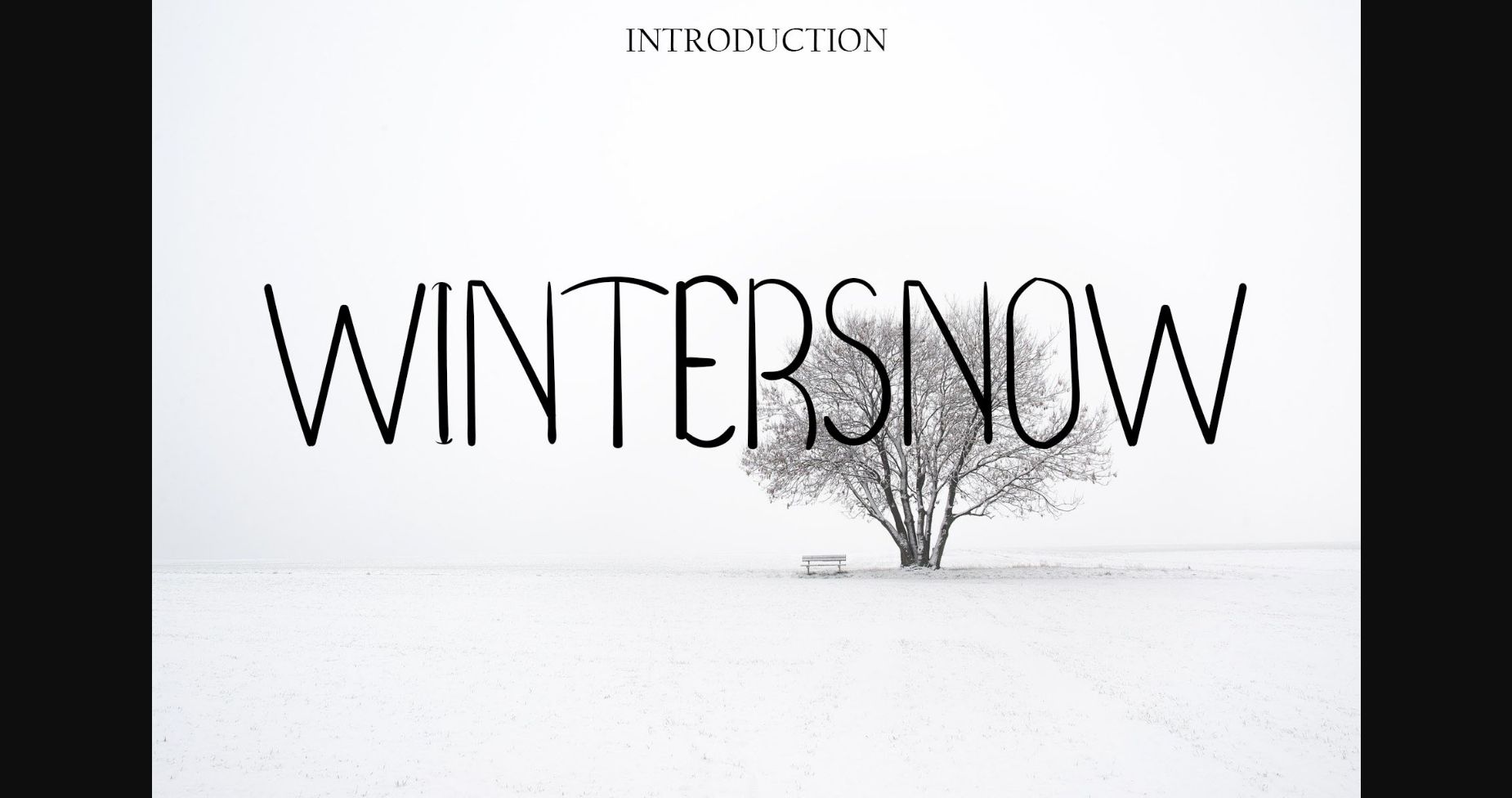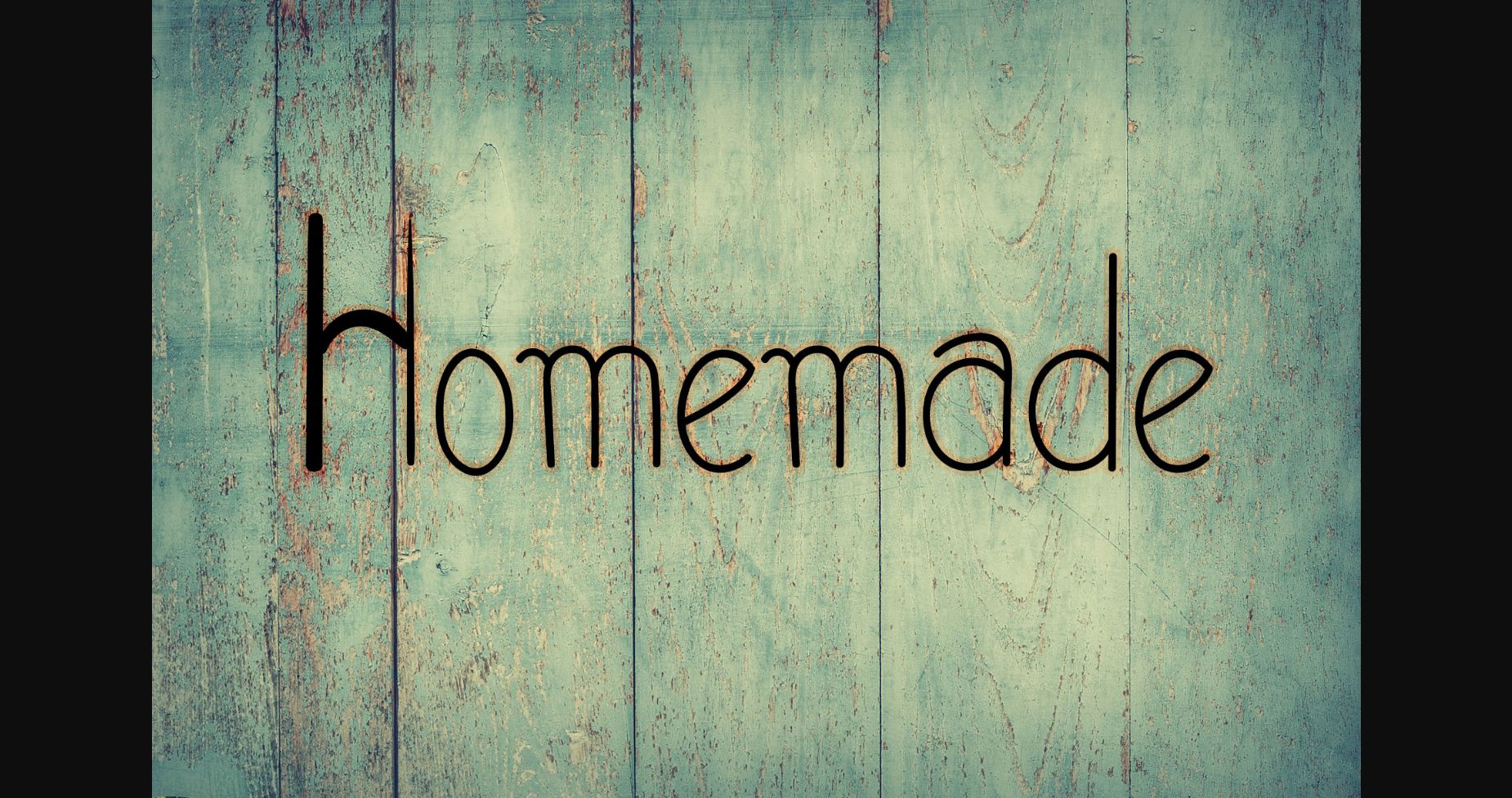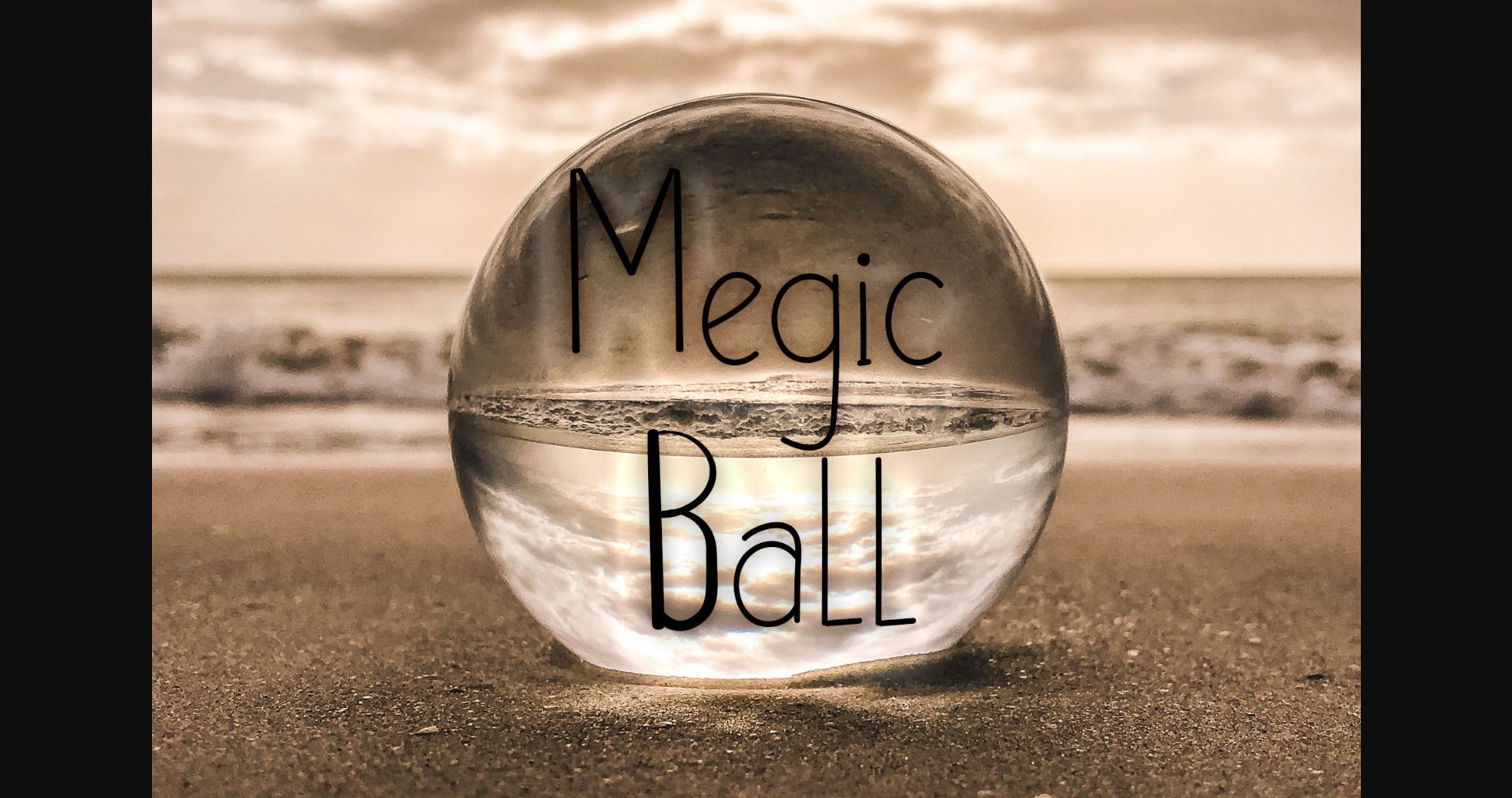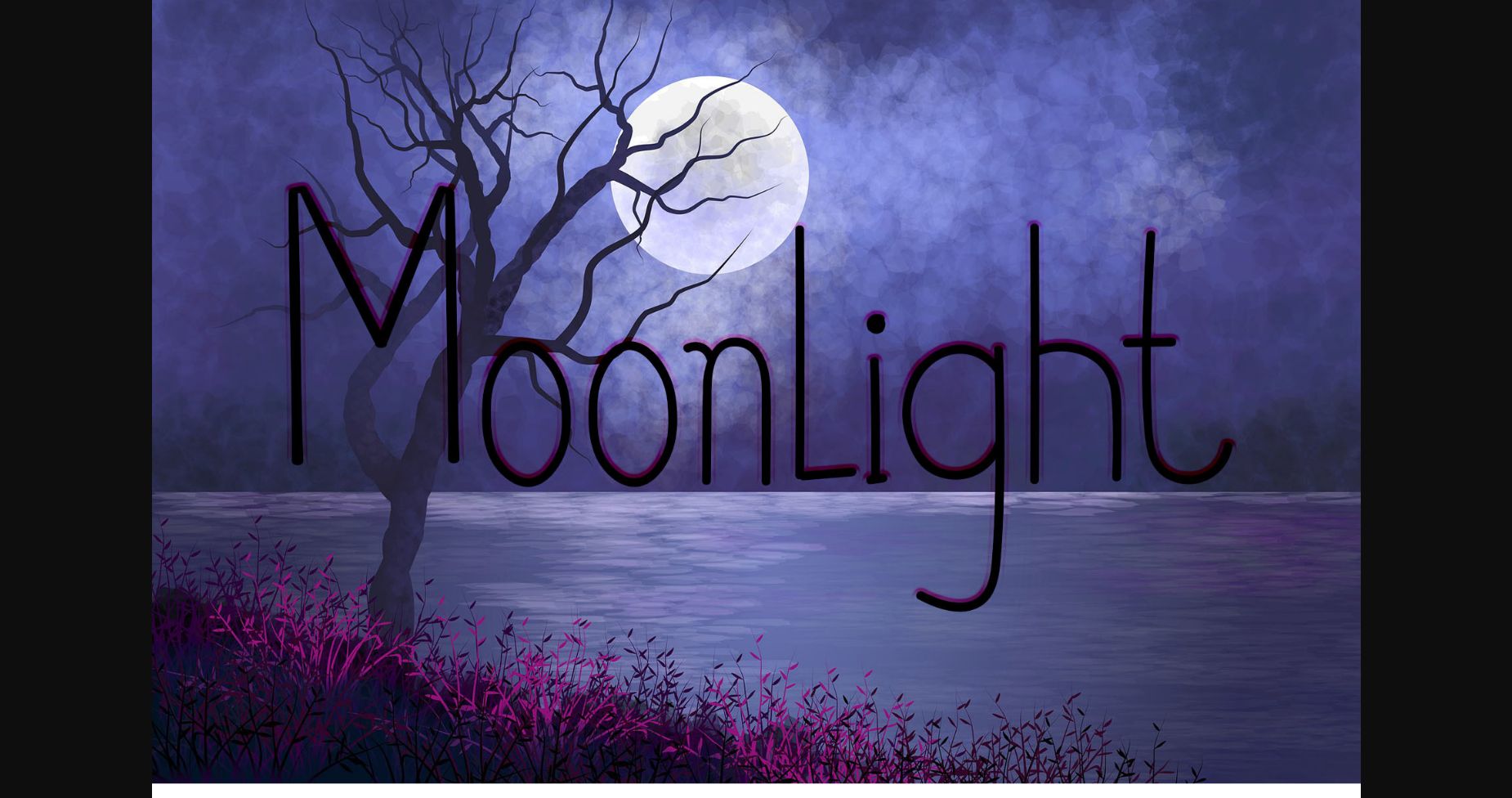
About Wintersnow Font
Wintersnow is a minimal and neat sans serif font. Its incredible versatility makes it suitable for a large set of projects. Add it to your creative ideas, and notice how it makes them stand out!